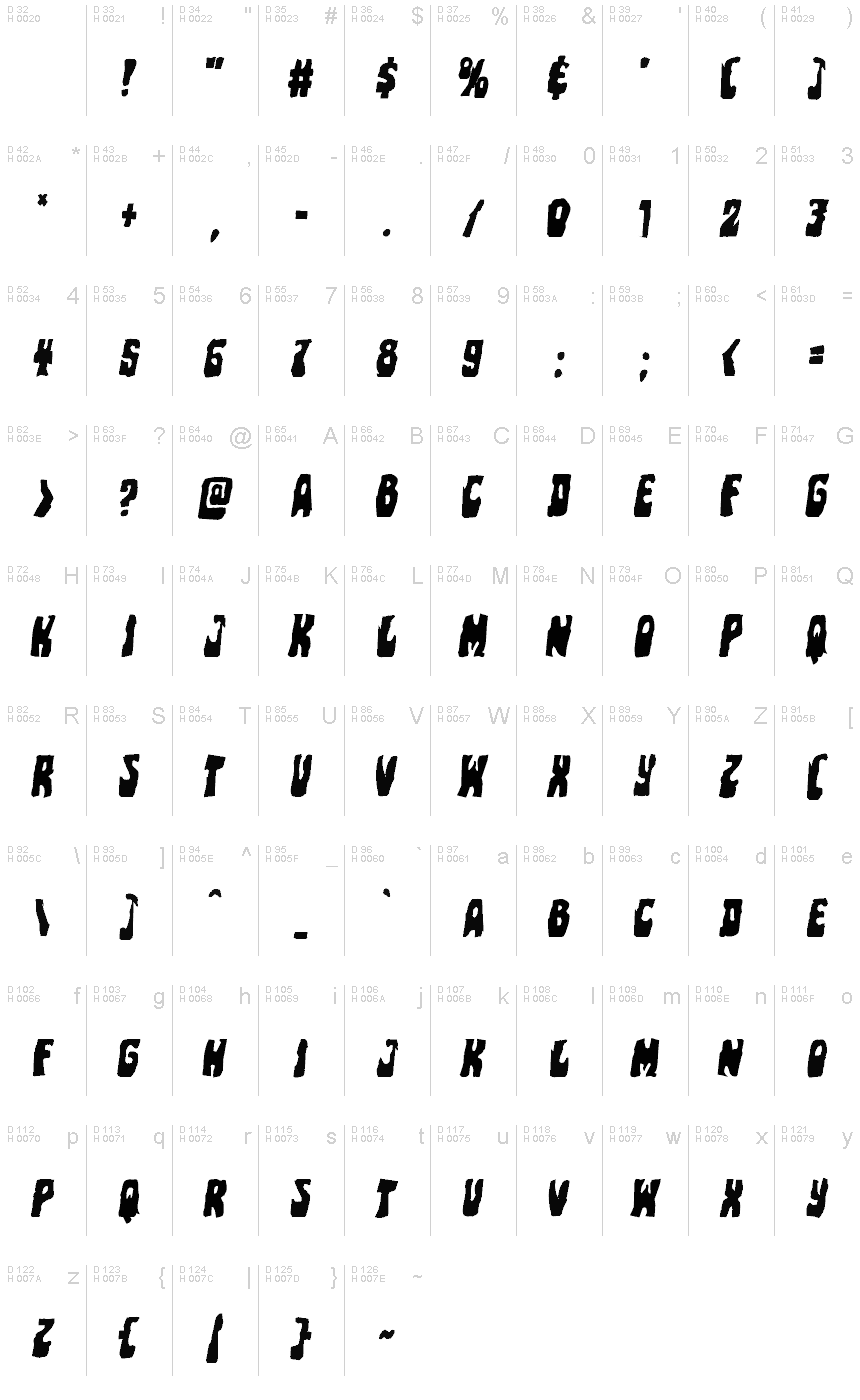
Pocket Monster Mangled Italic
Pocket Monster is a bold, condensed display font that exudes a captivating sense of unease and intrigue. Designed by Daniel Zadorozny, this typeface boasts a distinct italic style, with mangled, irregular letterforms that evoke a haunting, monstrous aesthetic. The sharp, jagged edges and distorted shapes lend the font a menacing, almost otherworldly quality, making it a compelling choice for horror-themed designs, alternative rock album covers, and other projects that seek to convey a dark, unsettling atmosphere.
The Pocket Monster font's unique character and versatility make it a valuable asset for designers seeking to create striking, attention-grabbing visuals. Its condensed width and bold presence allow it to hold its own, even in small sizes or complex compositions, making it a versatile option for a wide range of applications.